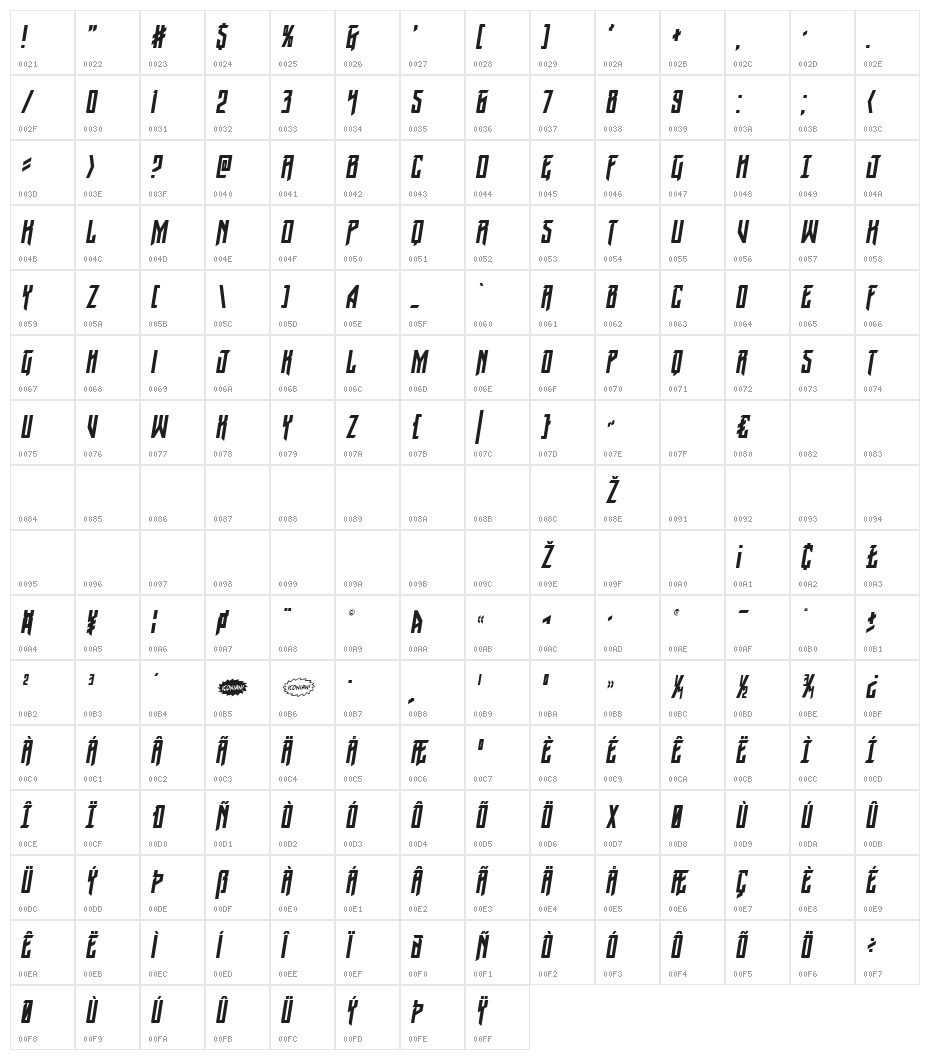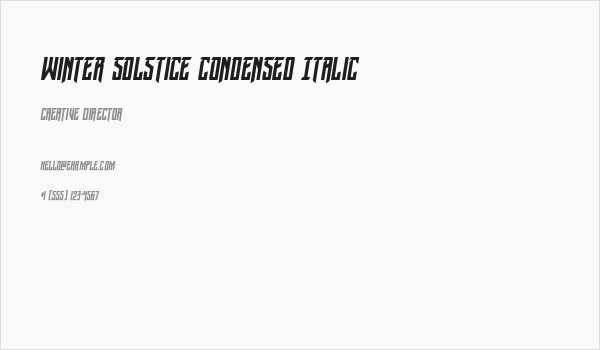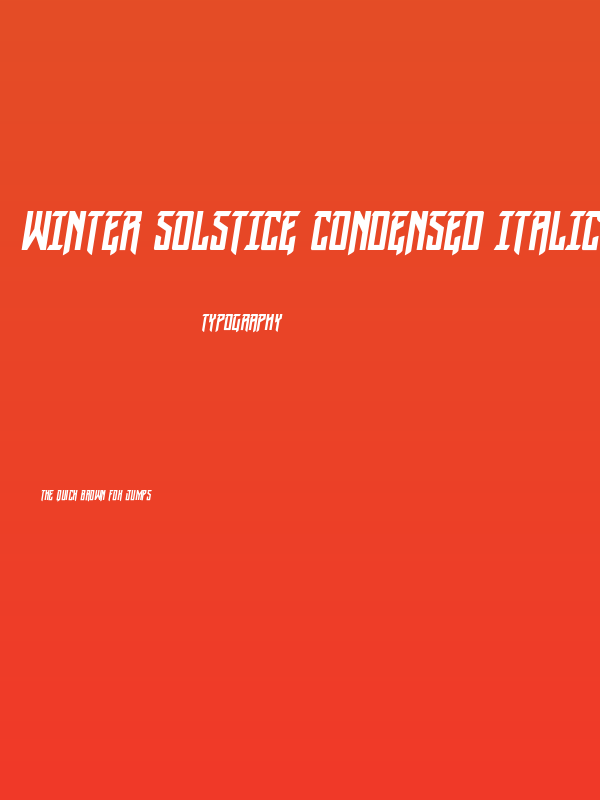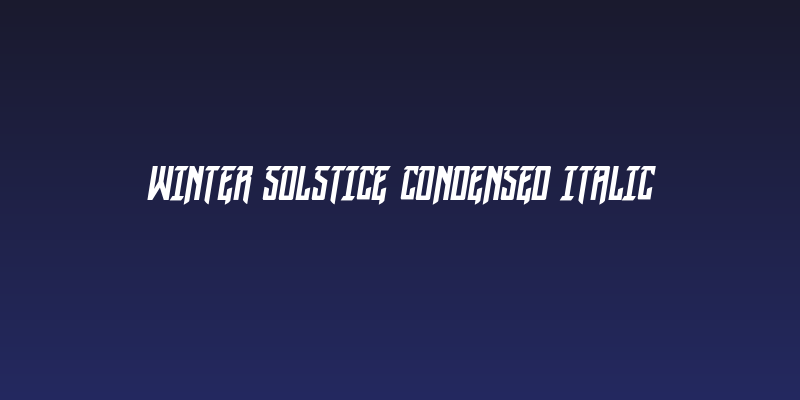
Winter Solstice Condensed Italic Font
Winter Solstice Condensed Italic Description
This font features a bold and dynamic style with sharp, angular lines and a condensed form. The italic slant adds a sense of motion and energy, making it stand out. Each character is uniquely designed with a futuristic and edgy appearance, perfect for grabbing attention. The uppercase and lowercase letters maintain a consistent style, while the numerals and special characters complement the overall aesthetic. The font's design is both modern and aggressive, ideal for projects that require a strong visual impact.
| Proposed Projects | Ideal for sports branding, music album covers, posters, and video game graphics. |